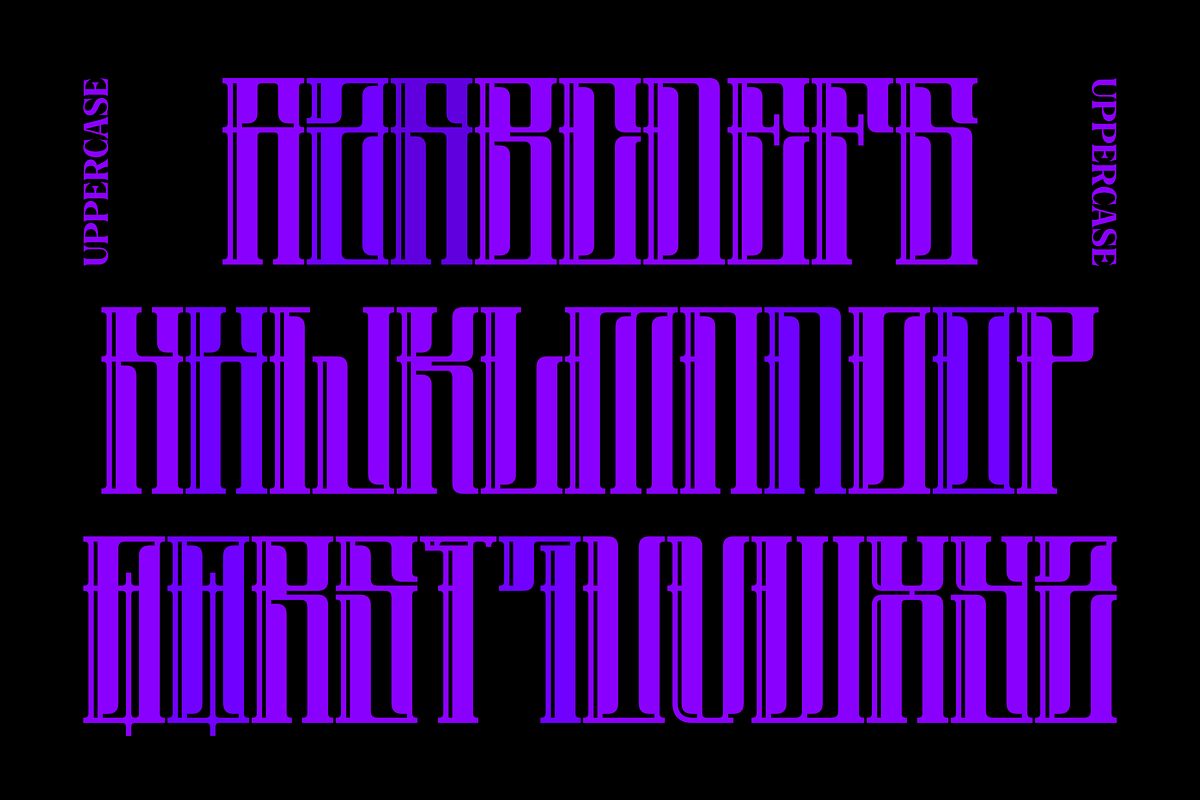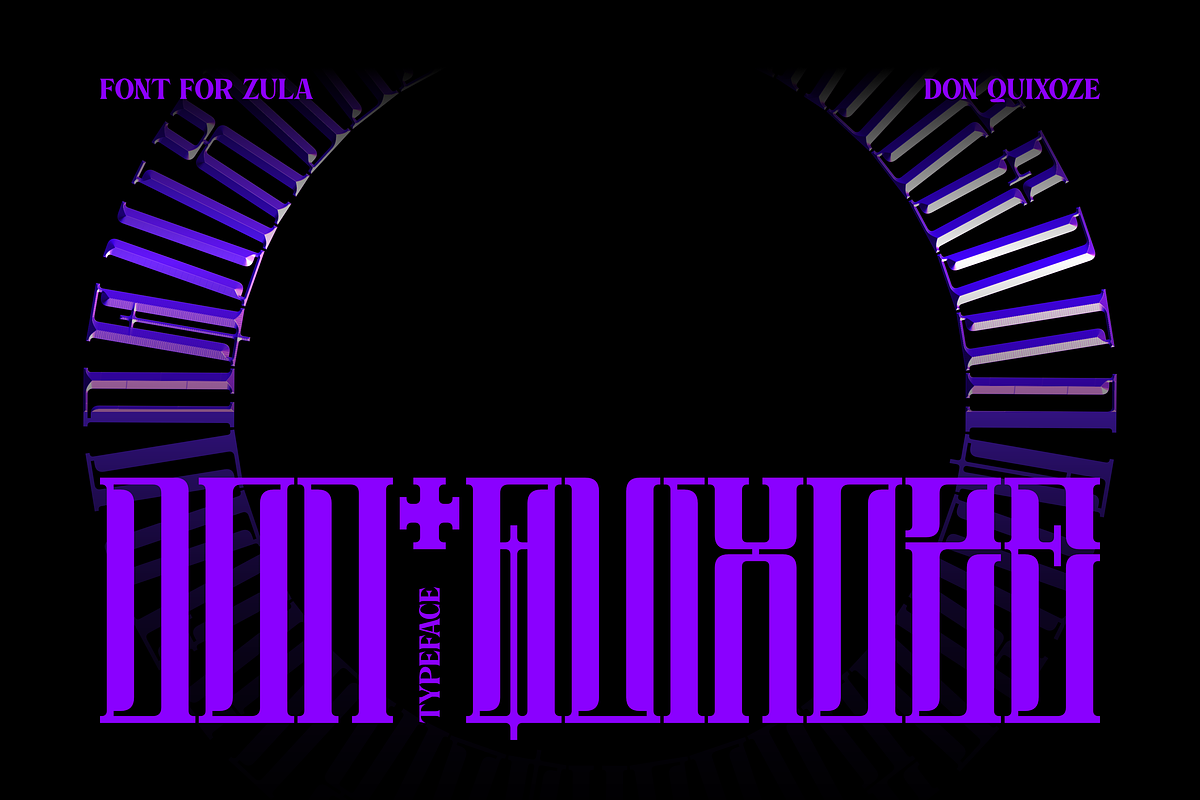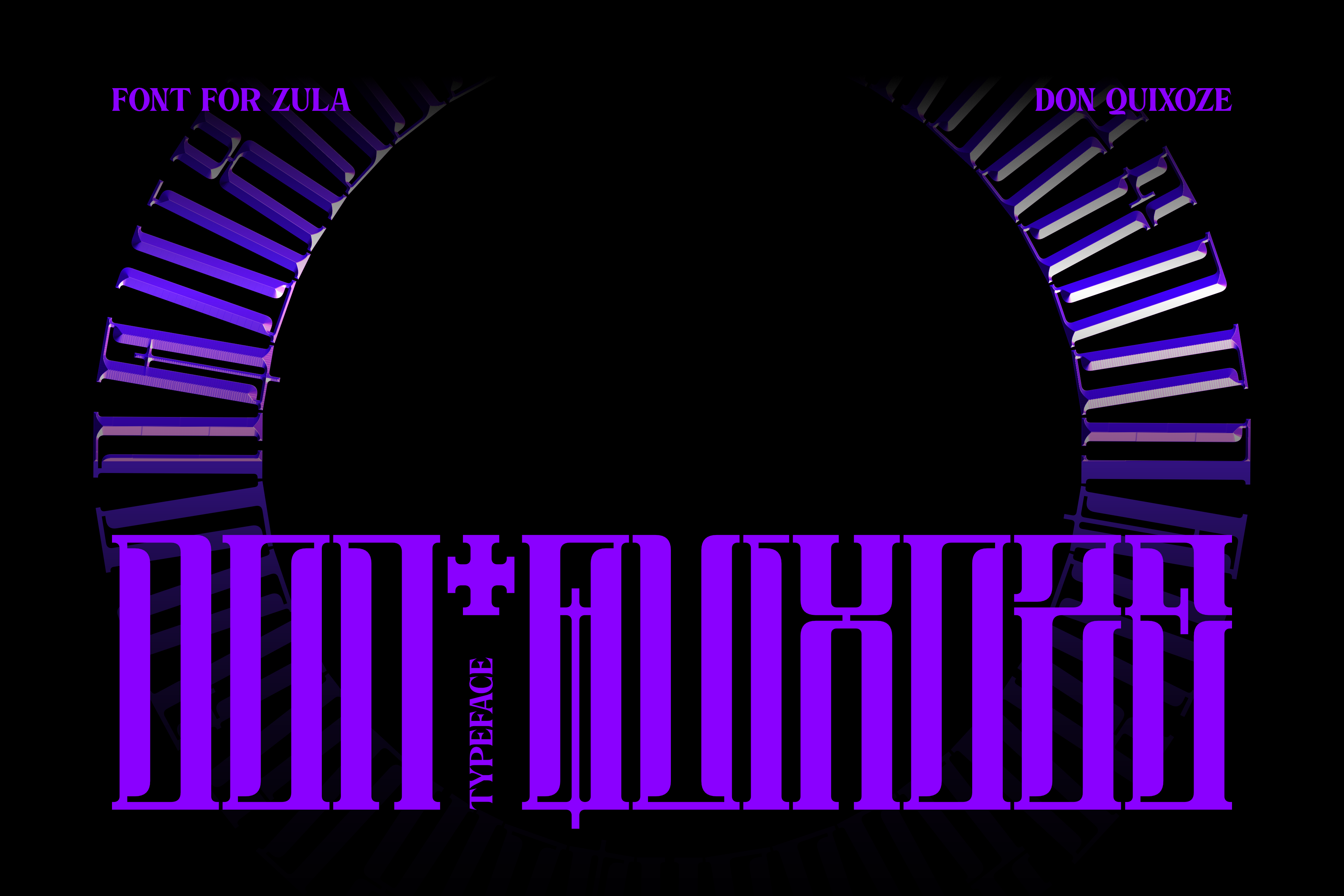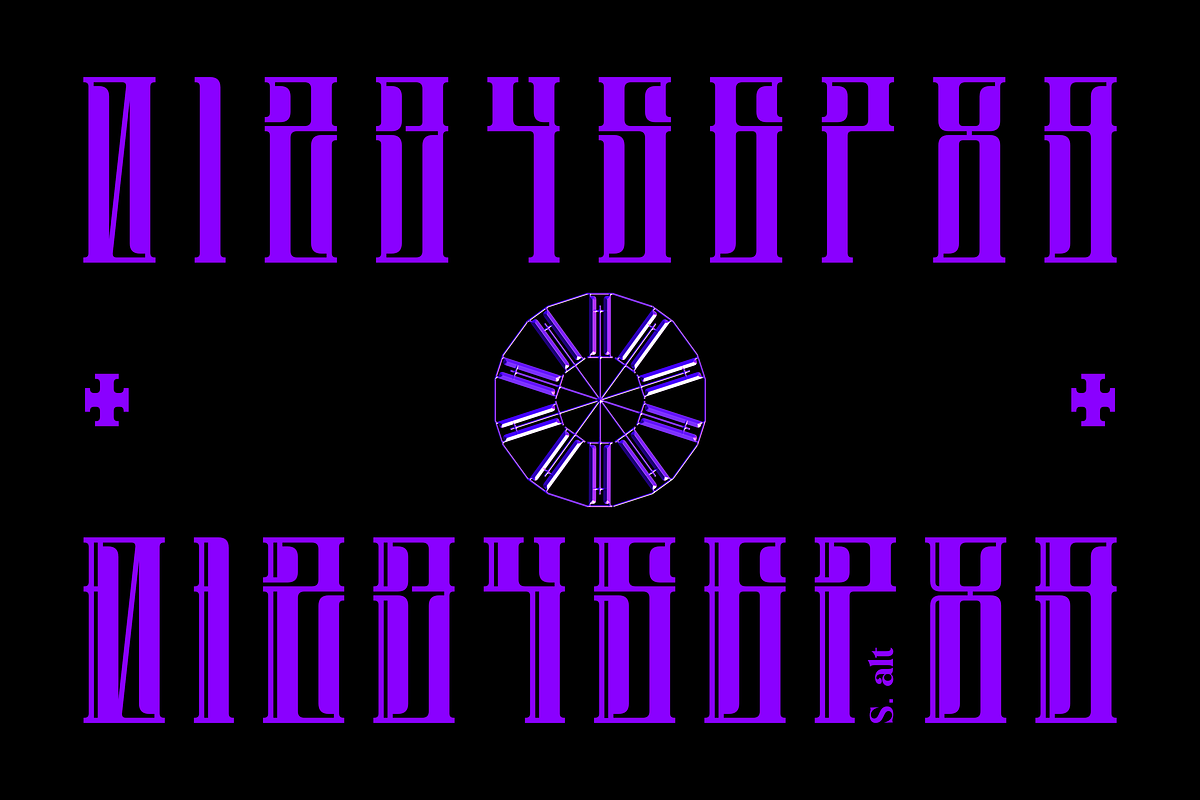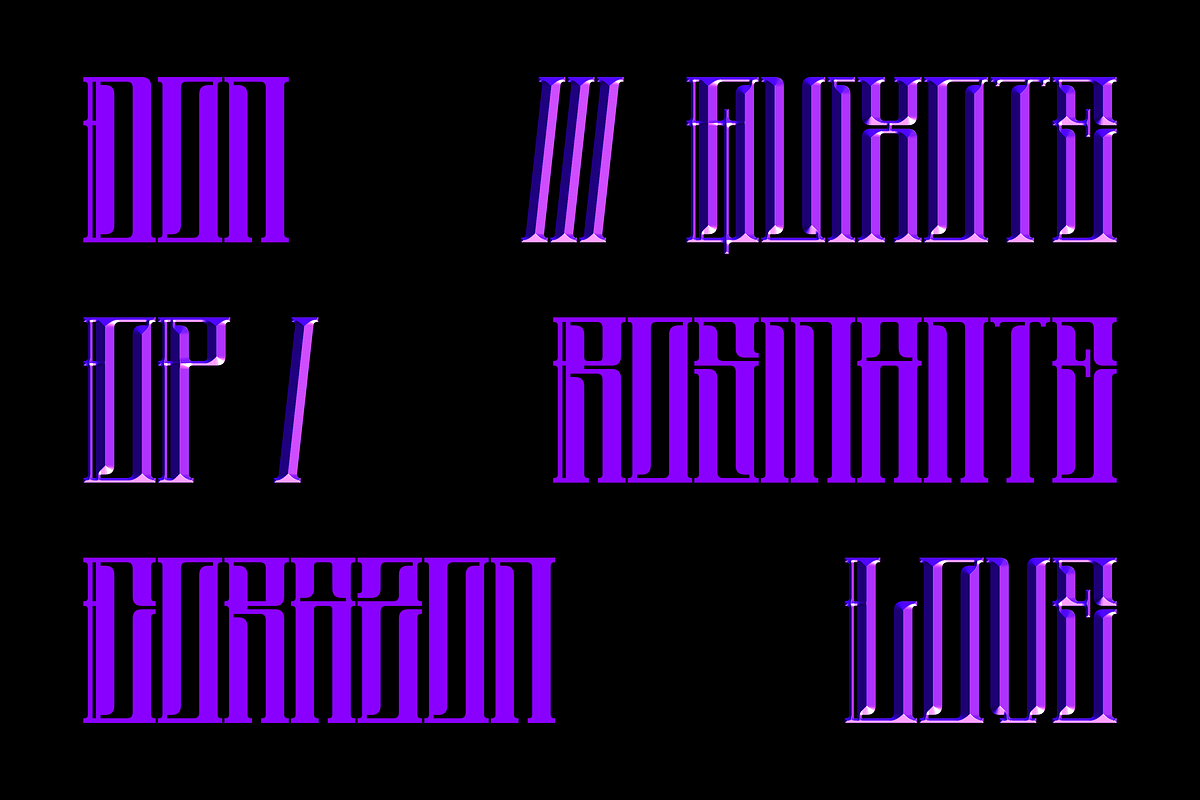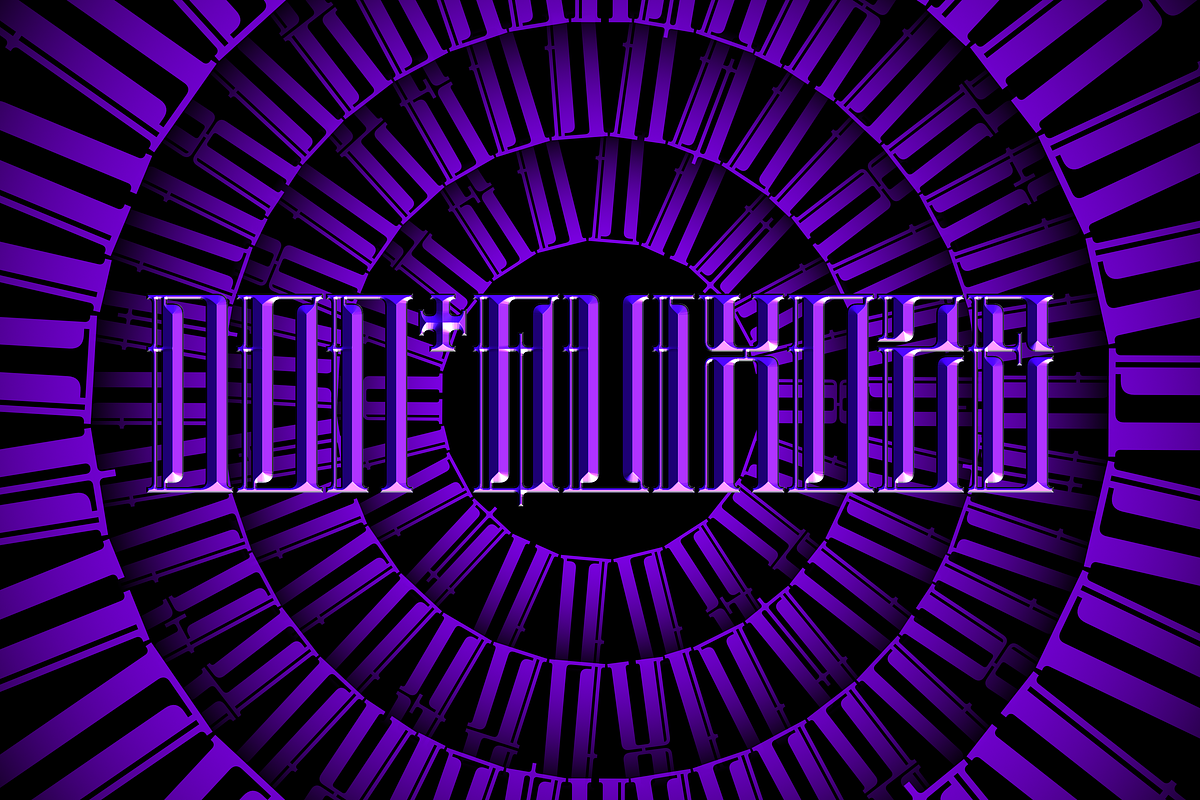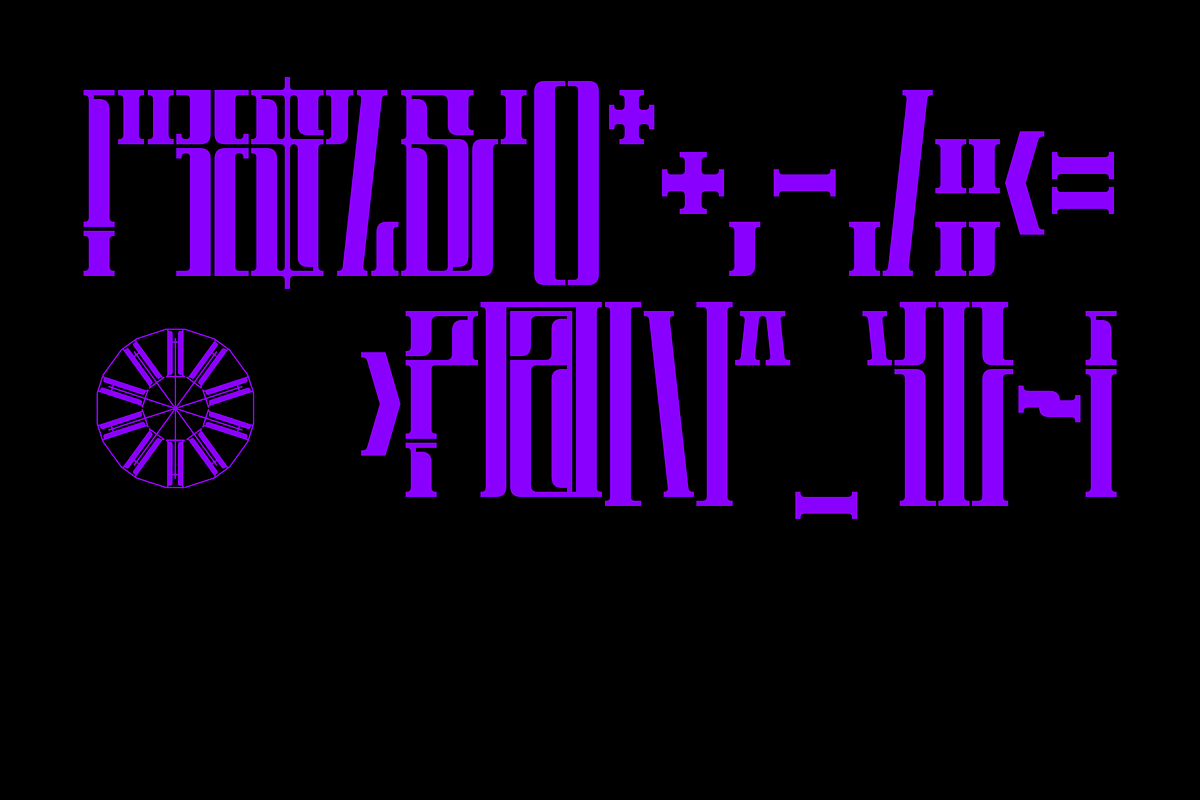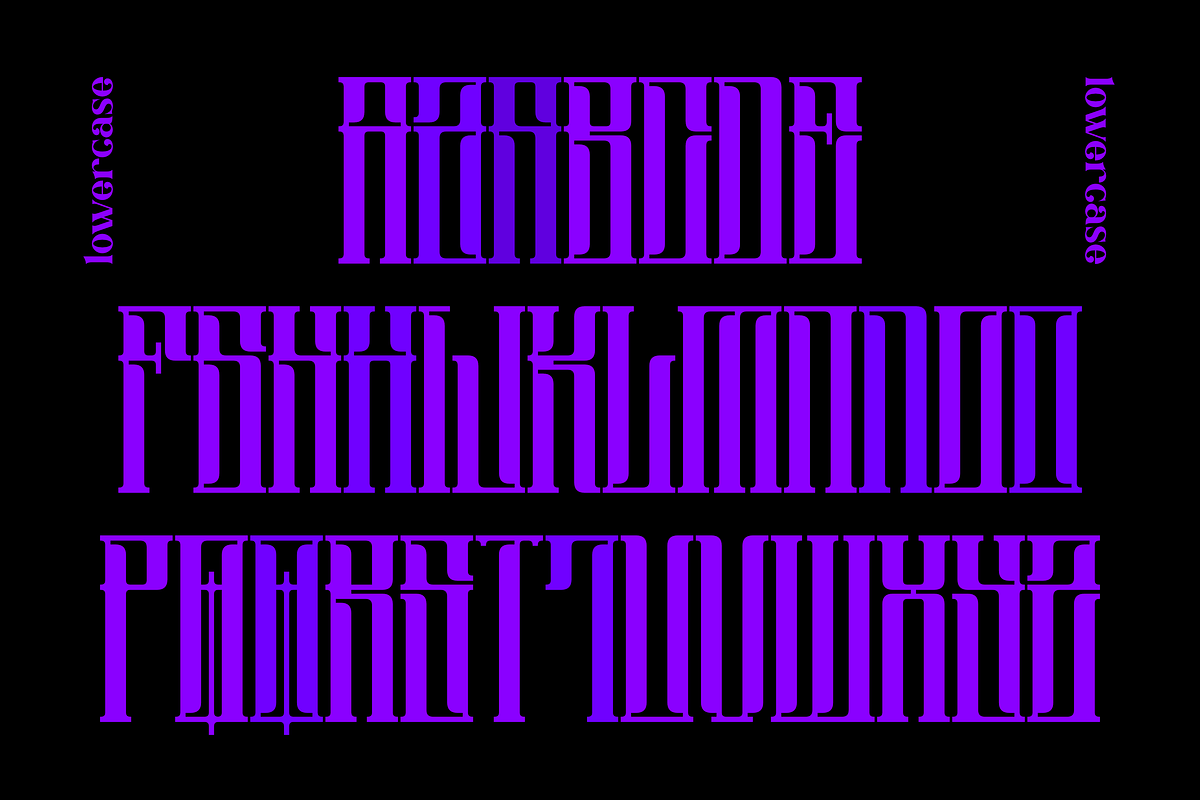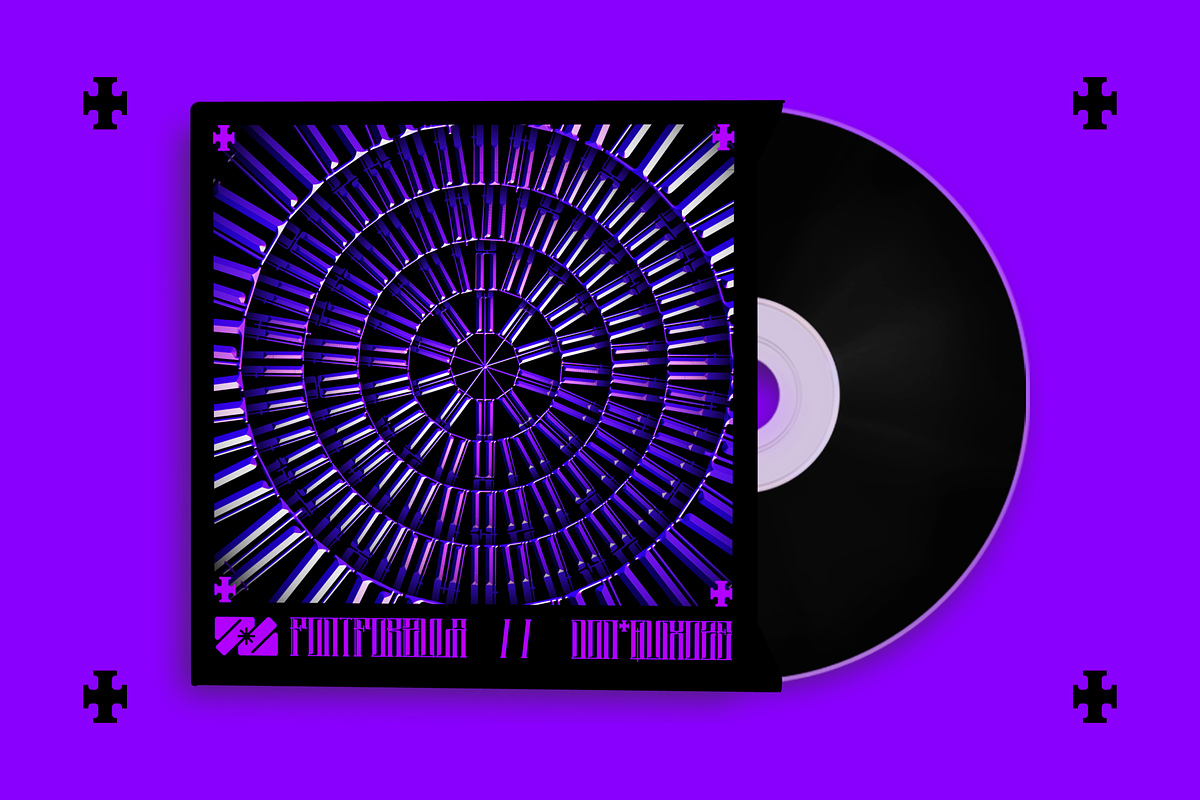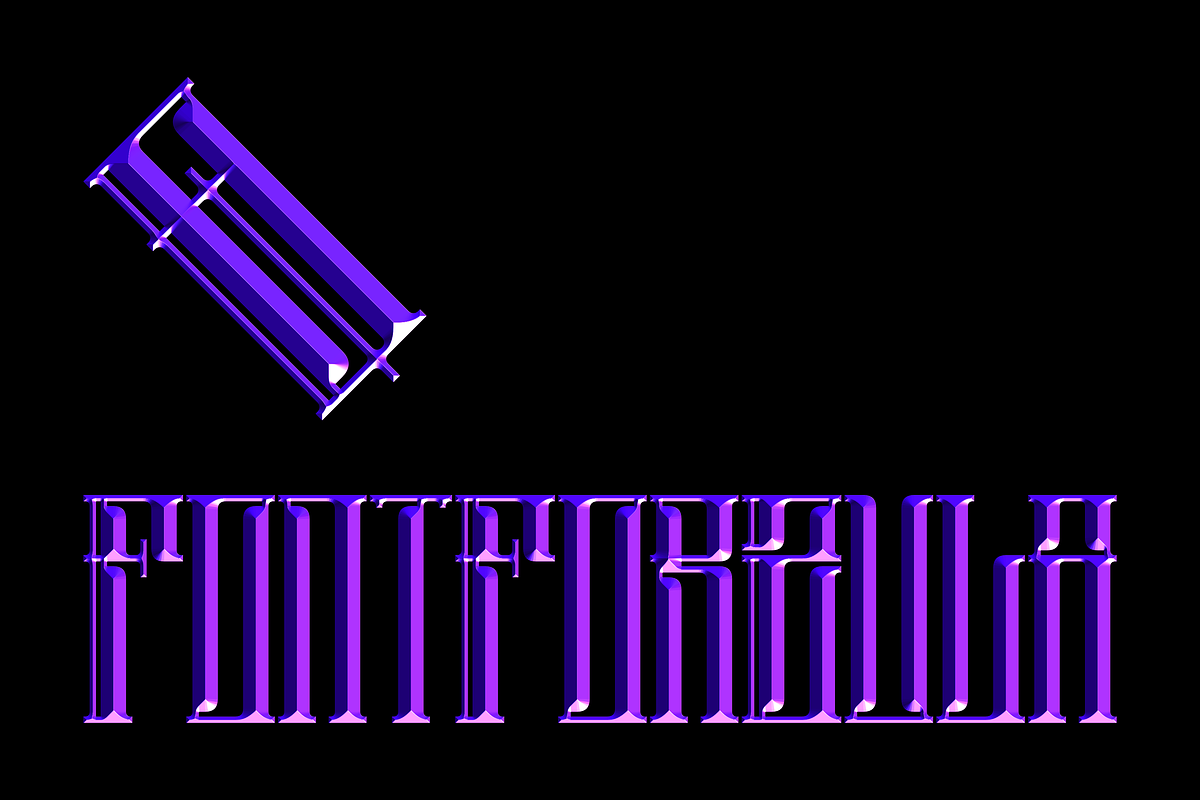
DON QUIXOZE TYPEFACE
Don Quixoze is a typeface with a semi-gothic and unique appearance that takes us as if we were back in the medieval era. In this typeface there are two types of styles that can be used according to your needs. Suitable for use in various project needs such as apparel design, posters, album covers, and others.